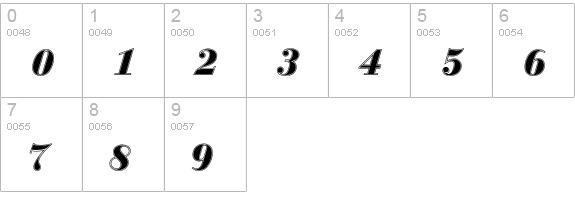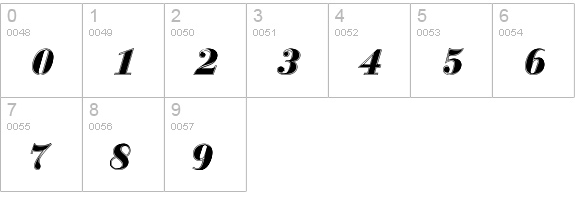
Bauer Bodoni T Bold Italic In1 is a strong, high-contrast, italic variant in the Bauer typeface family \xE2\x80\x94 well suited to headlines, attention-grabbing titles, and strong calls-to-action.
Bauer Bodoni T Bold Italic In1 font is a timeless and elegant typeface that exudes sophistication and class. With its bold and italic design, this font is perfect for creating eye-catching headlines, titles, and branding materials. The sleek and stylish curves of the letters make it a versatile choice for a wide range of design projects. And the best part? Bauer Bodoni T Bold Italic In1 font is available for free download at FontsMarket.com. Now you can easily add this premium font to your collection without breaking the bank. Whether you're designing a logo, a poster, or a website, this font will elevate your project and give it a touch of luxury. Don't miss out on the opportunity to enhance your designs with Bauer Bodoni T Bold Italic In1 font – download it for free today at FontsMarket.com!